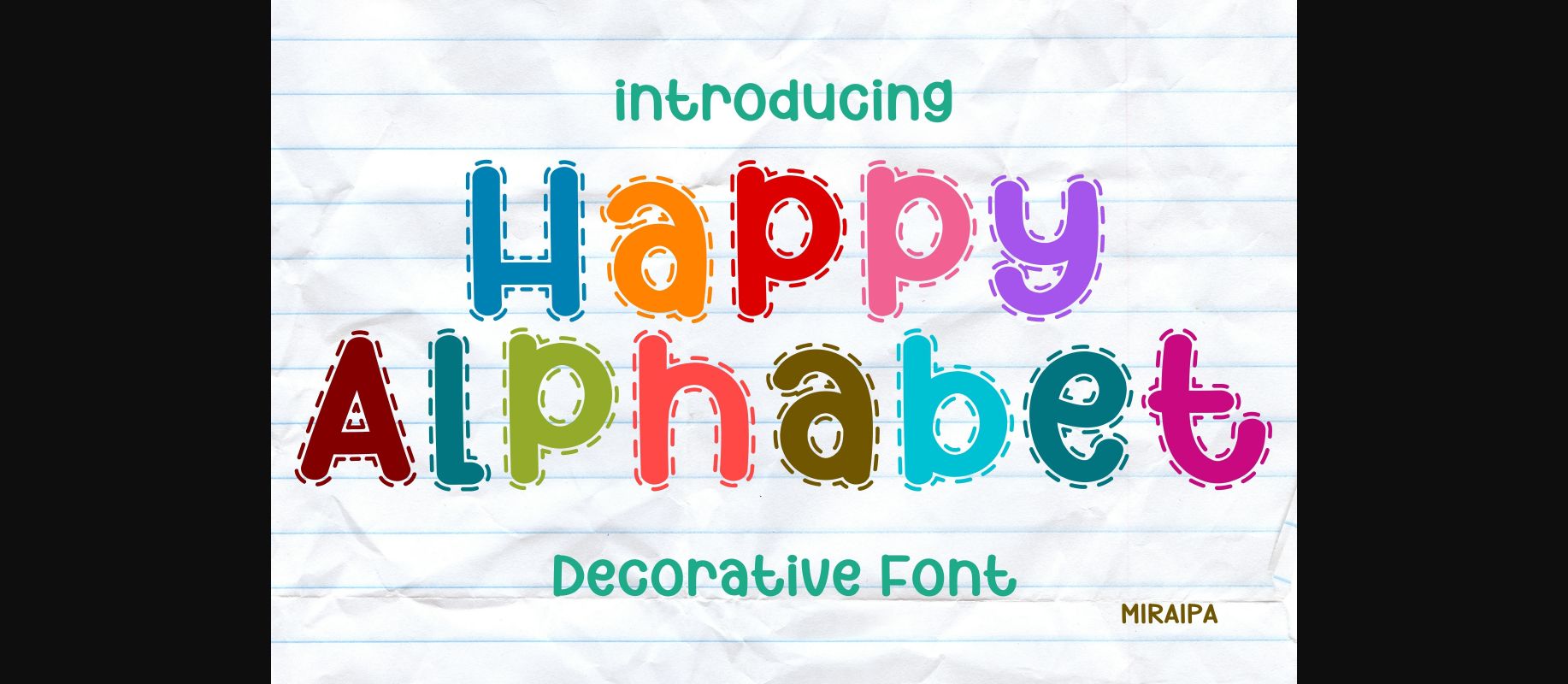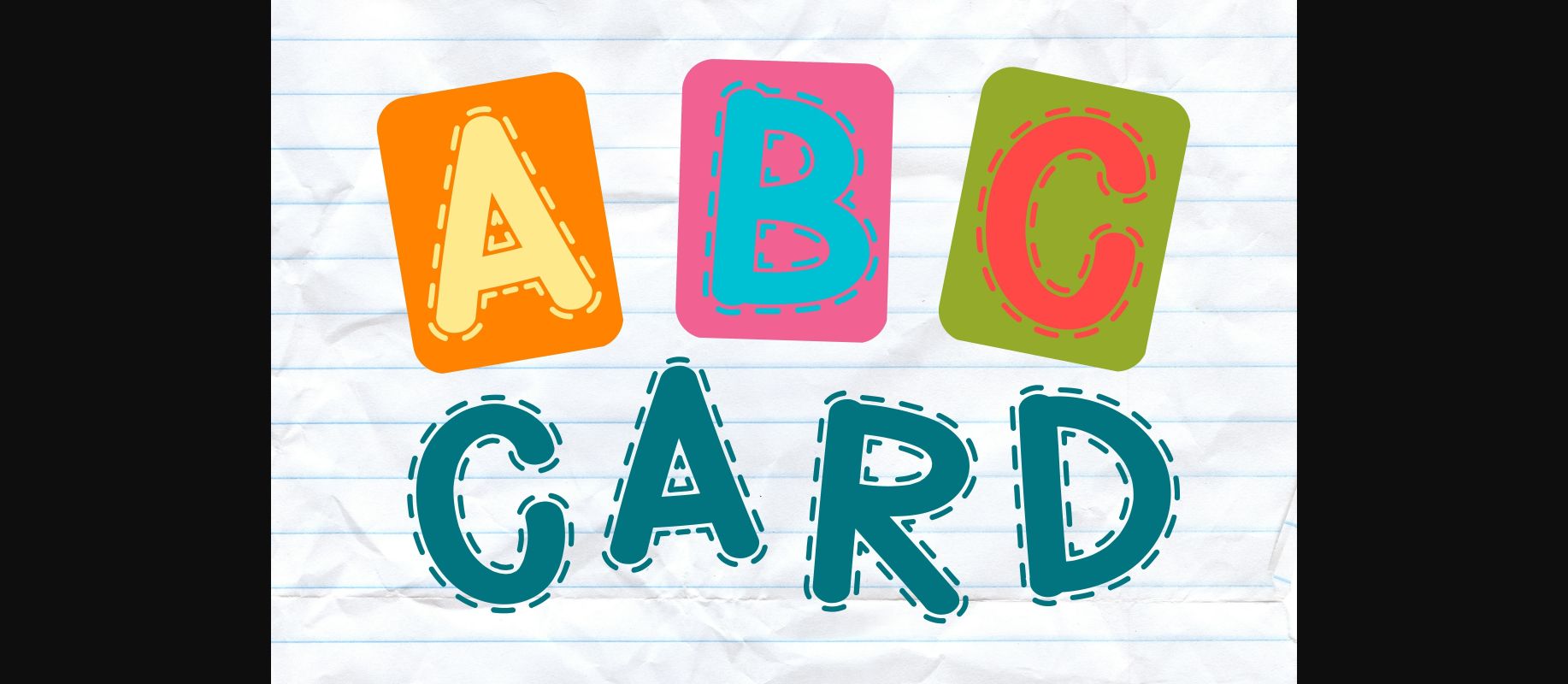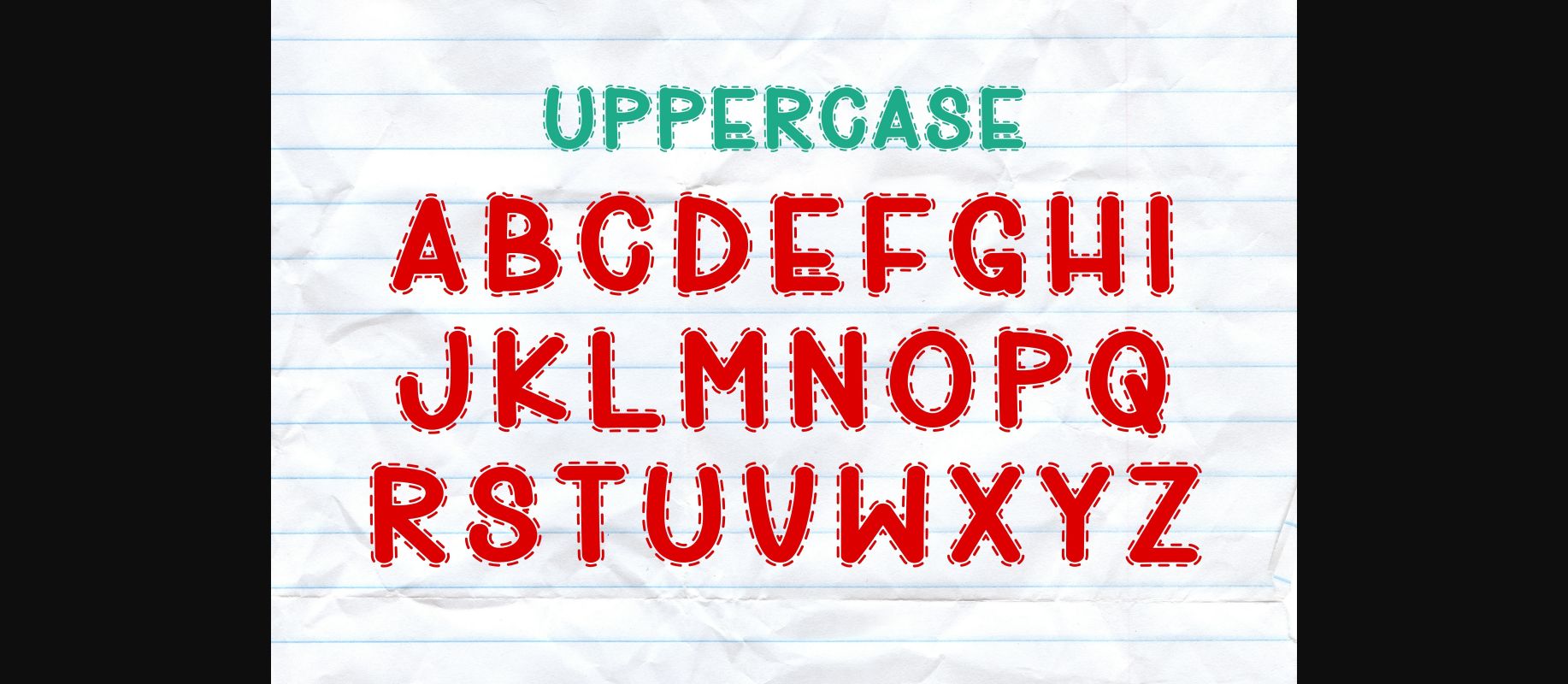
About Happy Alphabet Font
Happy Alphabet is a friendly and lovely decorative font. No matter the topic, this font will be an incredible asset to your fonts’ library, as it has the potential to elevate any creation.